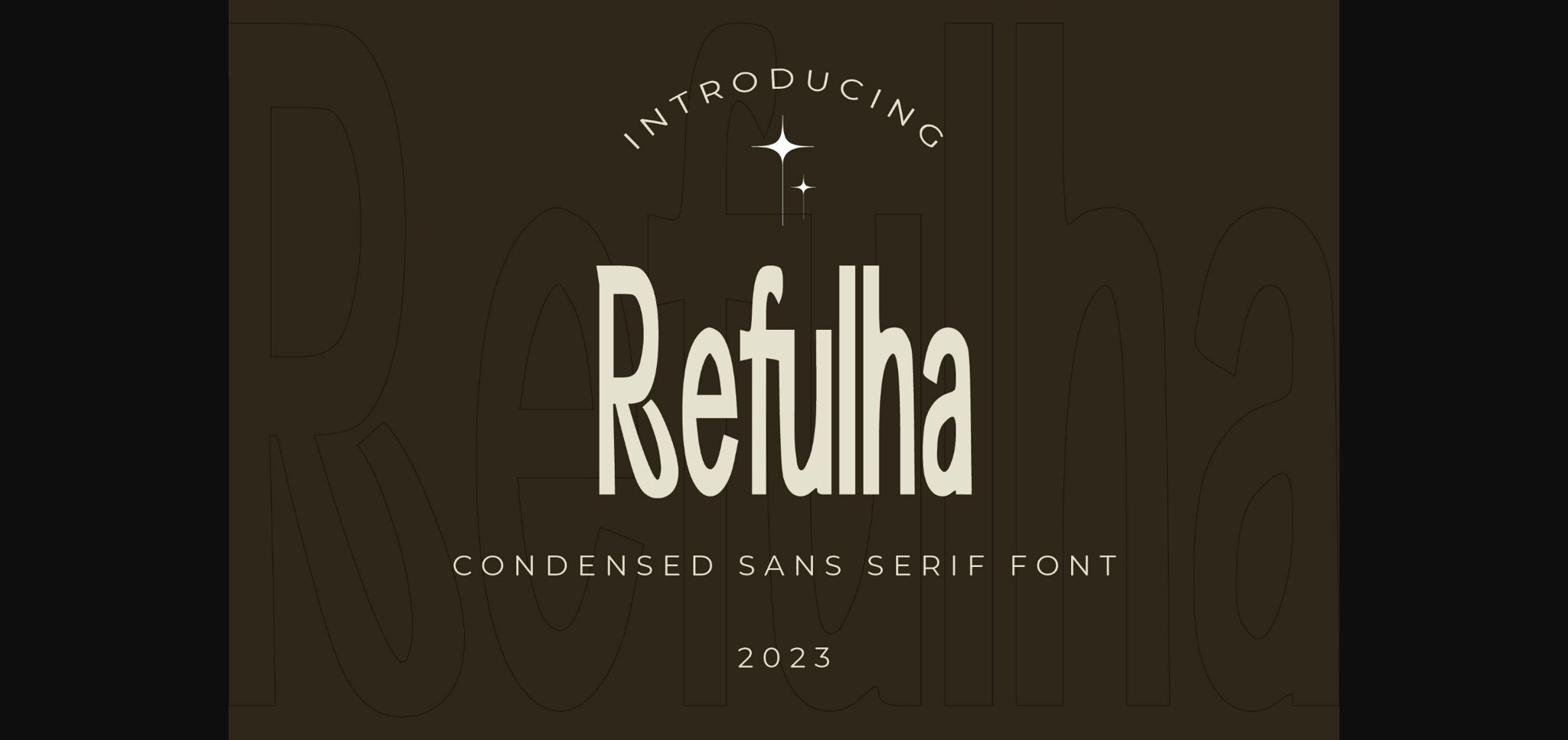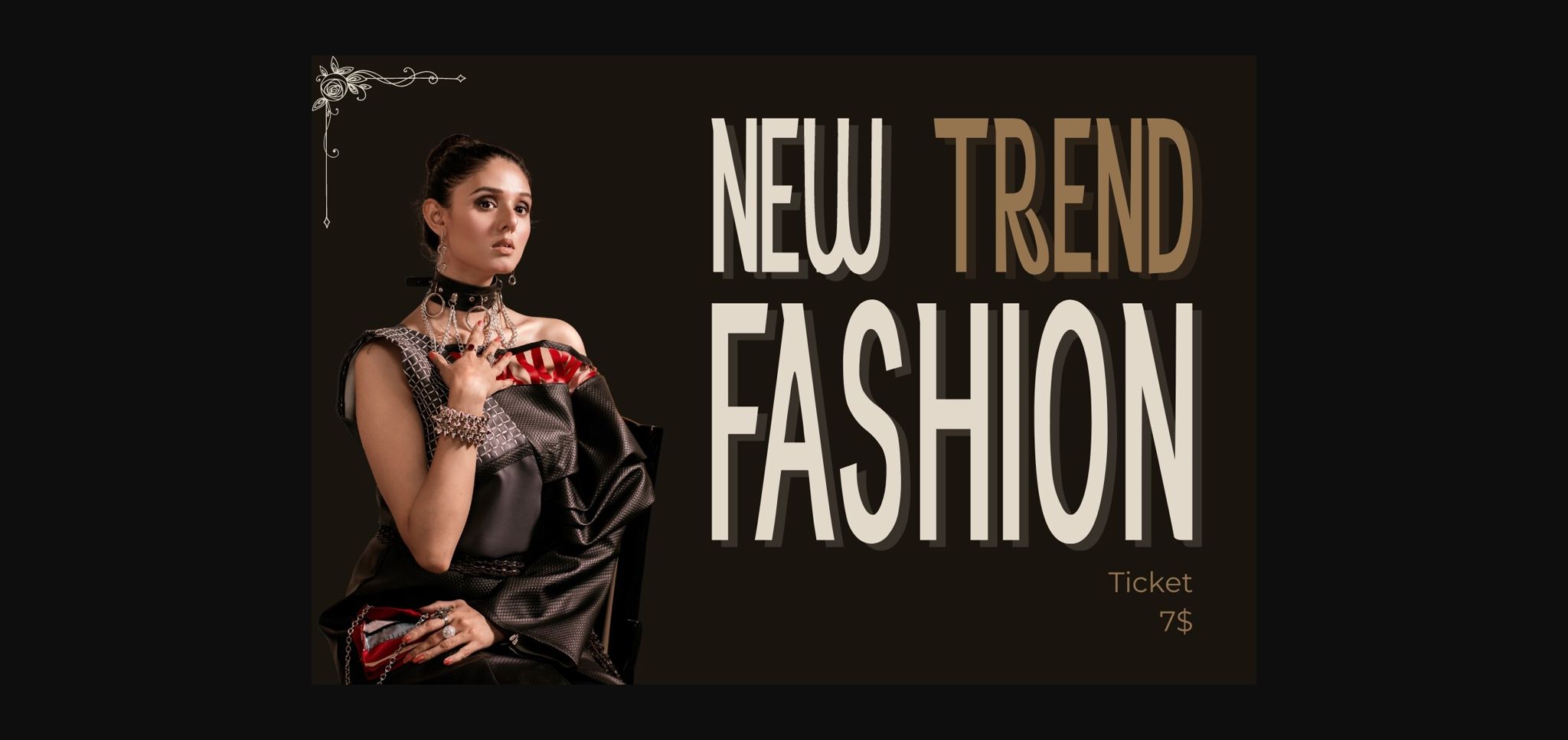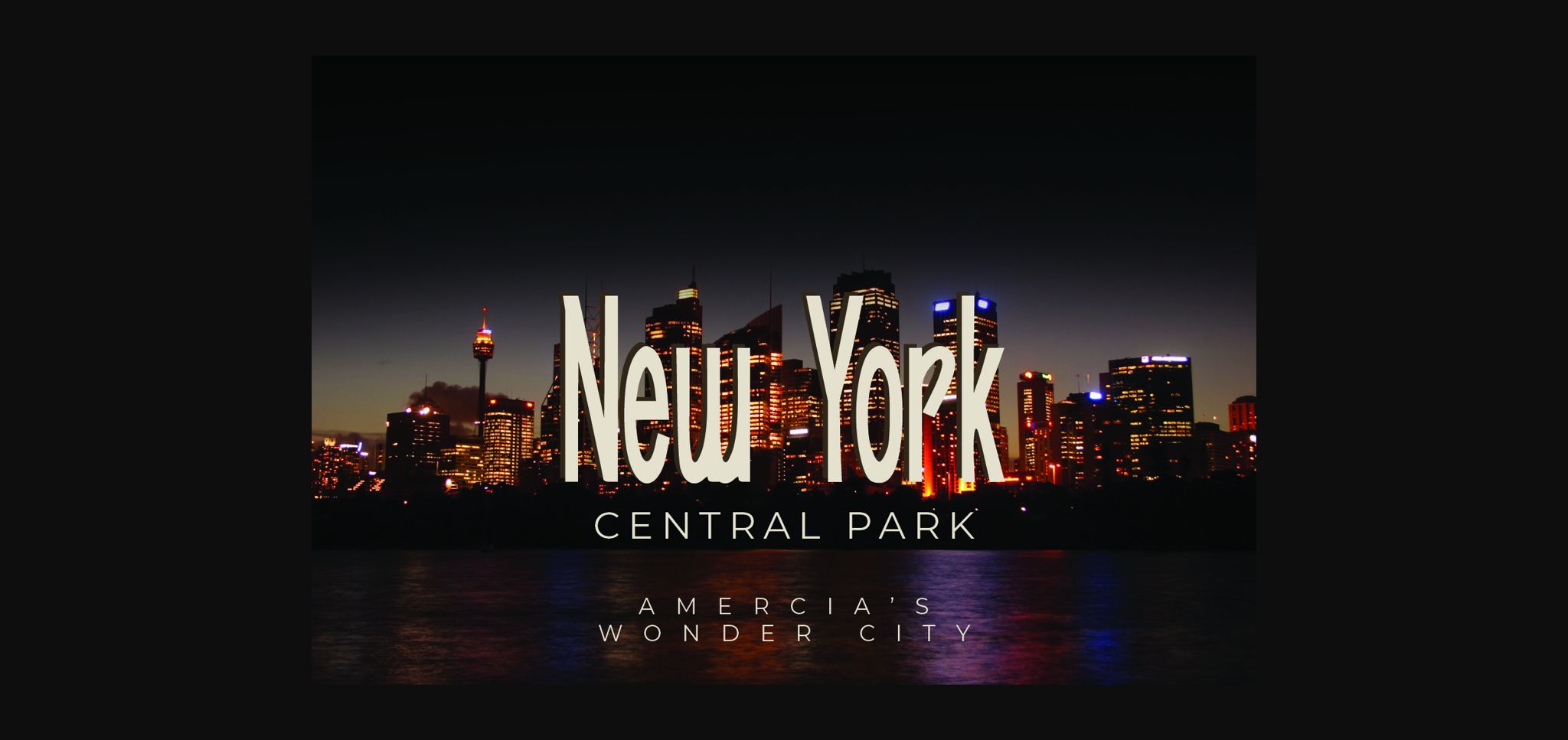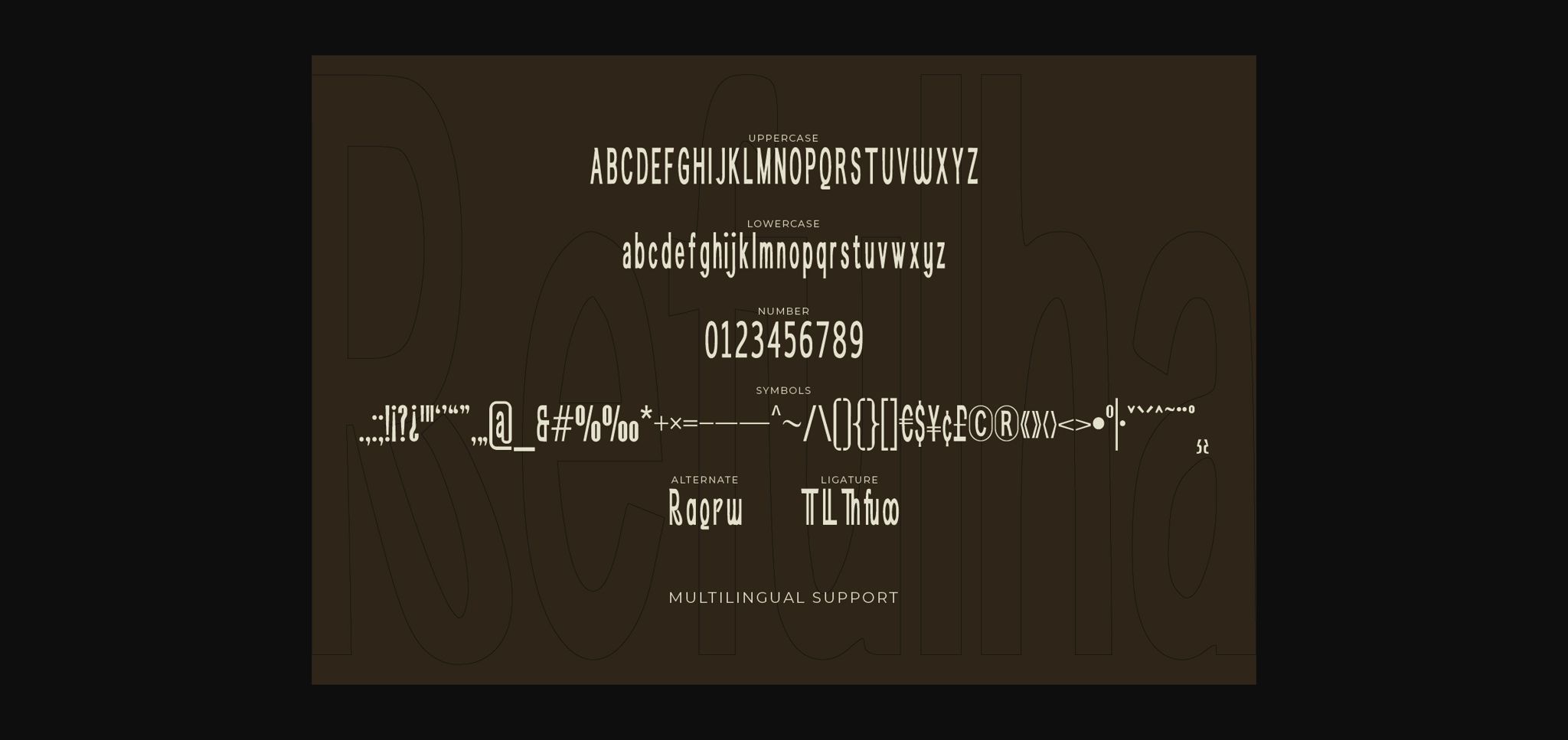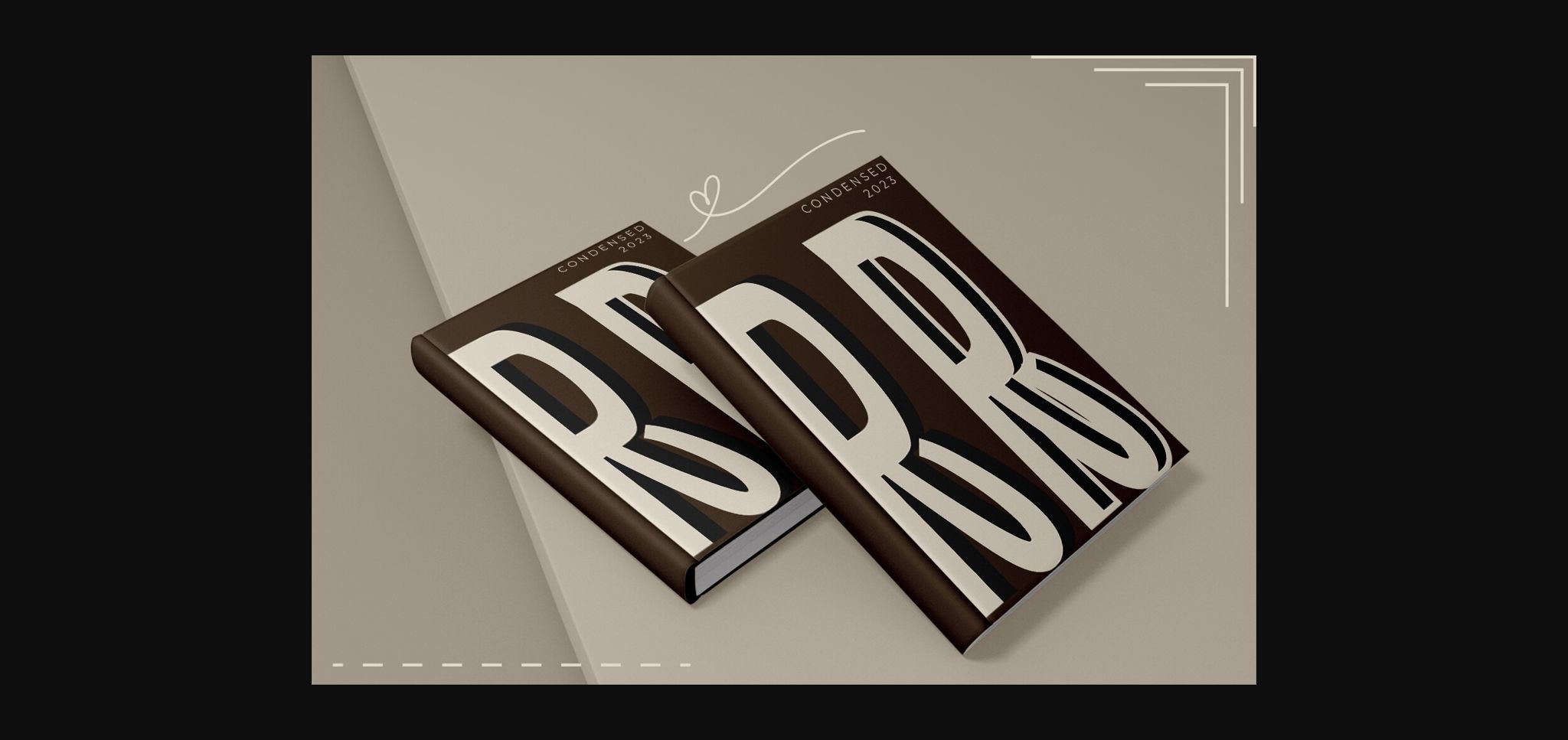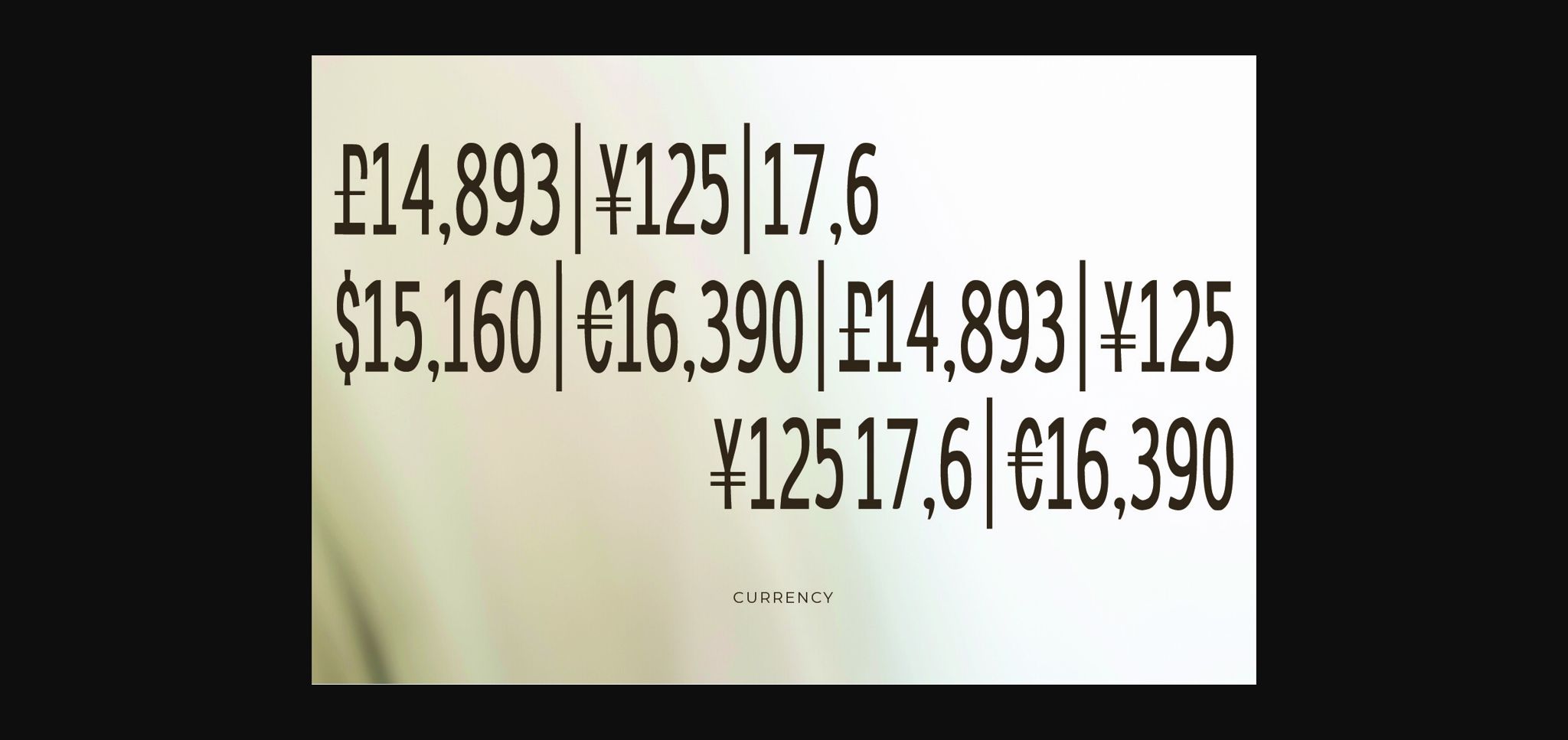
About Refullha Font
Introducing “Refullha,” a sleek and condensed Sans Serif font that embodies modern simplicity. With its clean lines and compact design, Refullha is perfect for projects where space efficiency and contemporary aesthetics are key. This font brings a sophisticated and minimalist vibe to your text, making it an excellent choice for logos, headlines, and any design that demands a refined, yet impactful, typographic presence. Elevate your visuals with the streamlined elegance of Refullha.